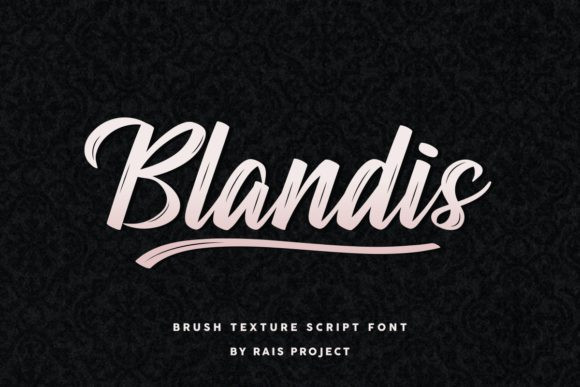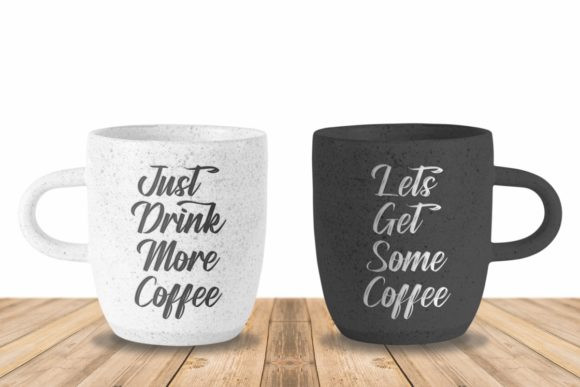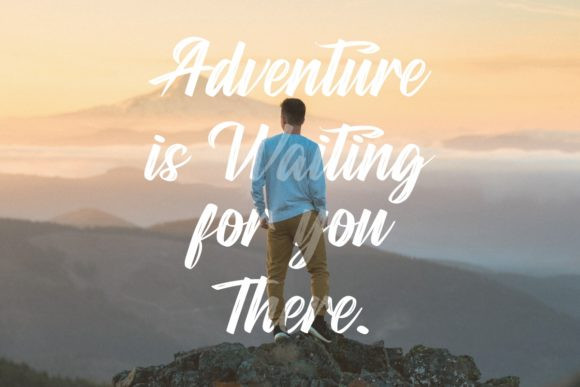
Blandis Font
Blandis is a gorgeous, cursive and thick lettered paint brushed handwritten font, crafted to give your headlines and logotype projects a stylish touch. This font reads as strong, confident, and dynamic and can add tons of nostalgic character to your designs.